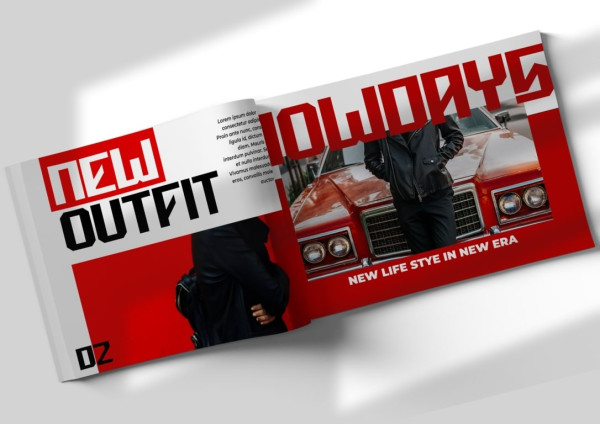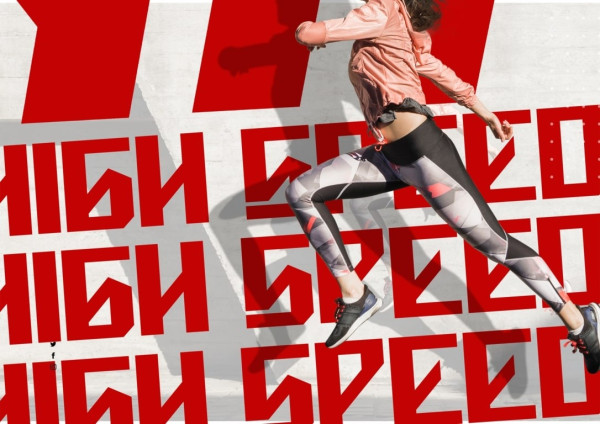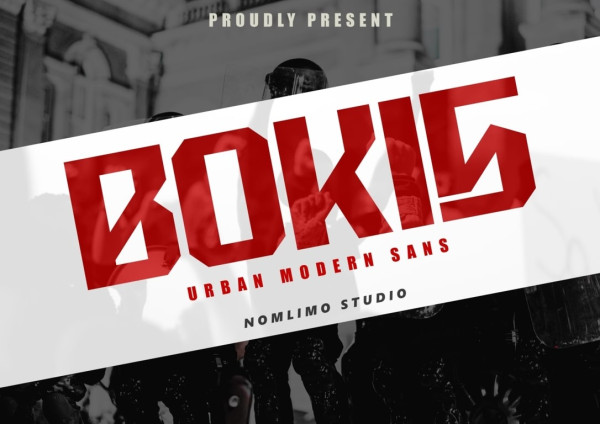
Bokis Font
Bokis Font, a font that exudes grit and determination, just like your spirit! With its industrial-style sans serif, Bokis is the perfect choice for creating impactful logos, eye-catching advertisements, stylish apparel designs, and much more. Embrace the rugged charm of Bokis and make a bold statement with your designs.